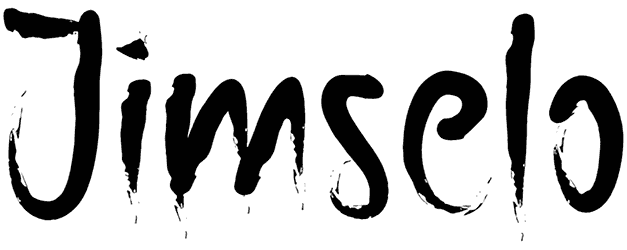
Jimselo Font
You may never hear from a potential customer who rejects your first design proposal. If you want to impress your viewers with a trashy script font, Jimselo is the way to go.
The unusual characters in this evil font could add suspense to your digital works. This could be used for anything from movie posters and T-shirt designs to flyers and book covers. Those interested can grab a free upload of this font from RB’s site right now.